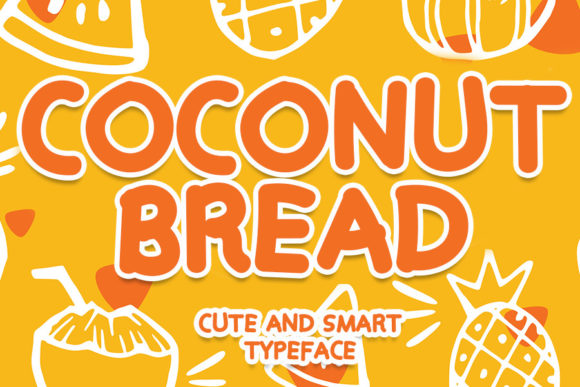
**Immerse yourself in the enchanting world of Cococnut Bread Font, where simplicity, nature, and playfulness intertwine.**
Prepare to be taken on a typographical adventure with Cococnut Bread, a whimsical display font that breathes new life into your creative endeavors. Inspired by the innocence and exuberance of childhood, this font is specially crafted to ignite joy in the hearts of all who behold it.
With its smooth curves and charming letterforms, Cococnut Bread evokes a sense of warmth and familiarity. It's as if each letter has been lovingly hand-drawn, capturing the magic of a child's imagination. The font's subtle imperfections add a touch of authenticity, making it perfect for projects that aim to evoke a sense of nostalgia or childhood wonder.
But don't let its playful spirit fool you – Cococnut Bread is incredibly versatile, lending itself beautifully to a wide range of design applications. From whimsical storybooks and cheerful greeting cards to vibrant posters and eye-catching branding, this font has the power to transform your words into enchanting works of art.
Its readability and playful nature make it an ideal choice for children's products, packaging, and educational materials. Picture your little ones' faces lighting up as they encounter the charming letters of Cococnut Bread in their favorite books or games.
Designers will adore the endless possibilities that Cococnut Bread presents. Its simplicity and elegance allow it to blend seamlessly with both modern and traditional aesthetics, making it a perfect complement to any project. Whether you're creating a whimsical logo, a captivating social media post, or a stunning website, this font will elevate your designs to new heights.
So, embark on this typographical odyssey with Cococnut Bread Font. Let its playful spirit inspire your creativity, and experience the joy of creating designs that bring smiles to the faces of all who encounter them.